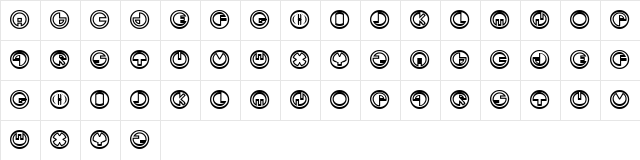
Sirkhular Regular Font Preview
Sirkhular Regular
Sirkhular Regular Font Details
Design Context for Sirkhular Typeface
Sirkhular is a composed and adaptable typeface that performs quietly and consistently across a wide range of design contexts.